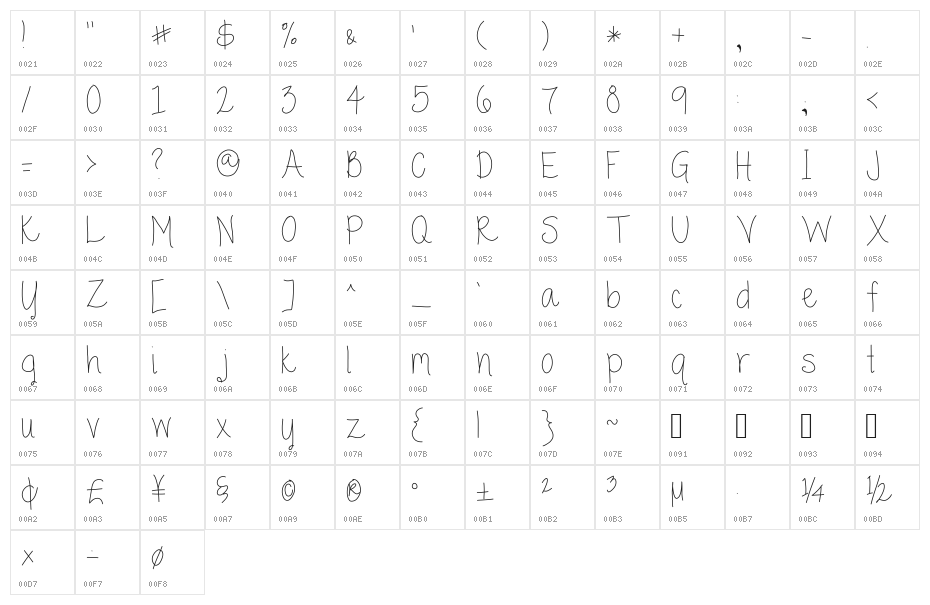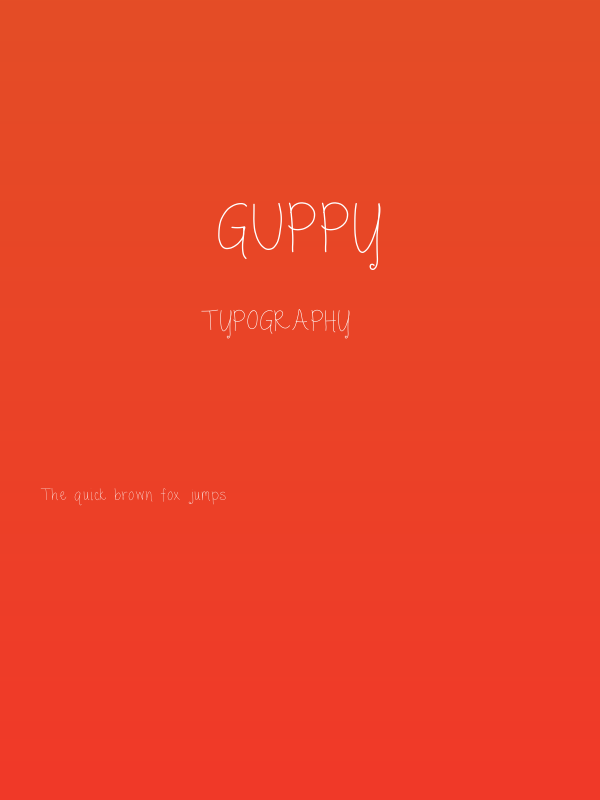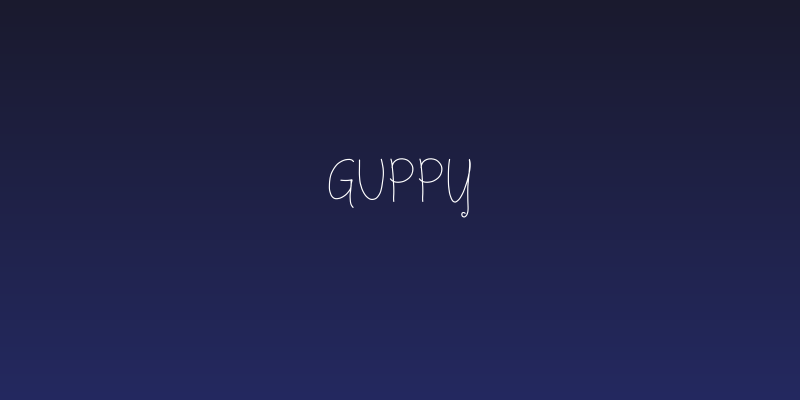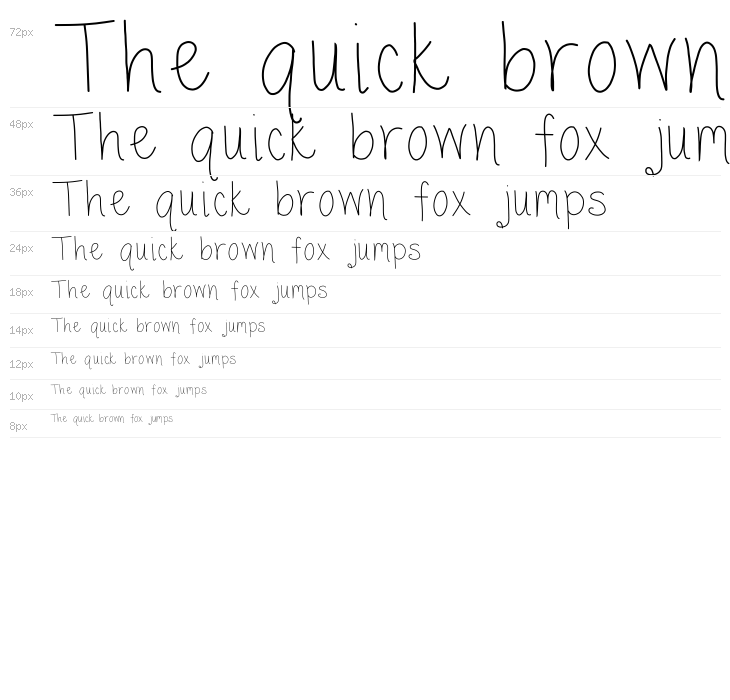
Guppy Font
Guppy Description
This font features a playful and whimsical handwritten style, characterized by its thin, slightly uneven strokes that give it a casual and friendly appearance. The letters are tall and narrow, with a slight slant that adds to its informal charm. The uppercase letters maintain a consistent height, while the lowercase letters exhibit a mix of rounded and angular forms, enhancing its quirky personality. The numerals are clear and distinct, matching the overall style of the alphabet. Special characters are integrated seamlessly, maintaining the font's cohesive look. This font is ideal for projects that require a personal touch, such as invitations, greeting cards, or playful branding.
Overall StyleCasual, Playful
Use CaseHeadlines, Informal text, Creative projects
Proposed ProjectsIdeal for invitations, greeting cards, playful branding, and personal projects.